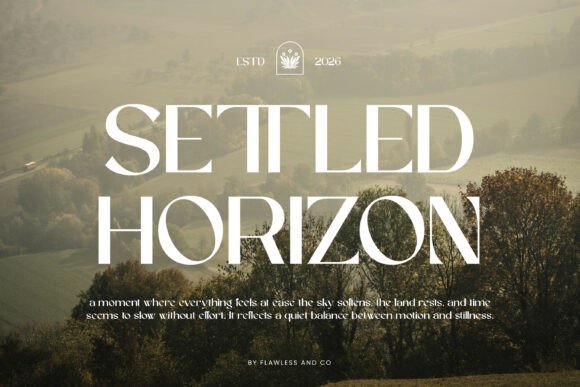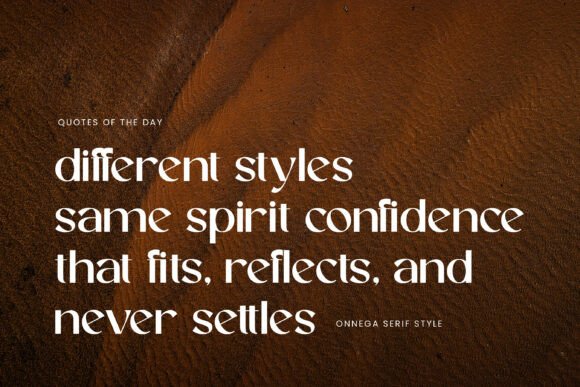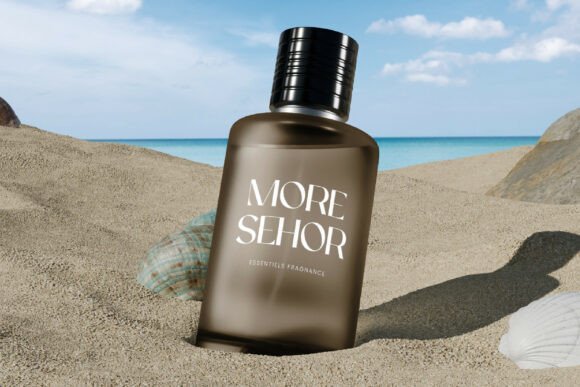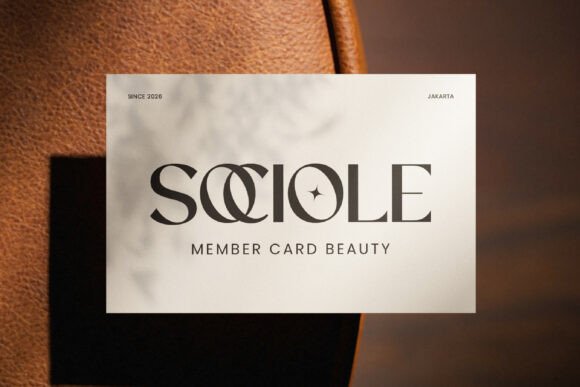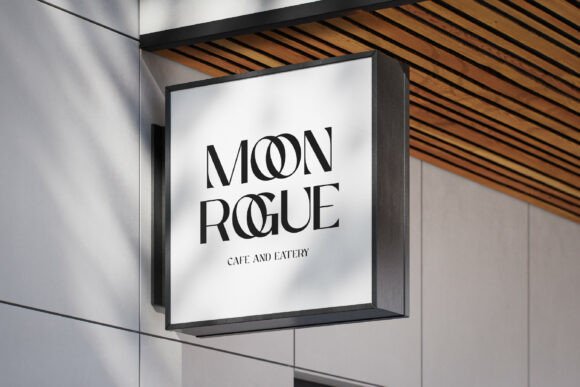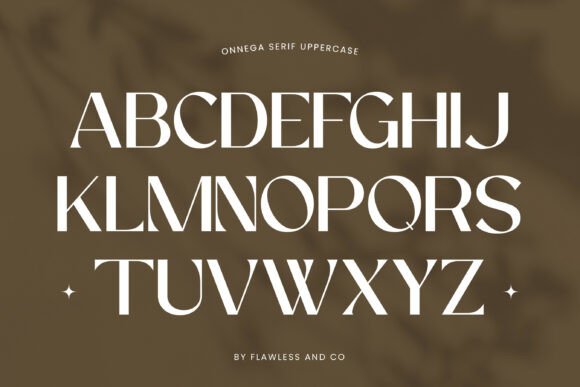
Introduction to Onnega Font
Have you ever been stuck on a creative project, staring at a blank screen, searching for the perfect font to elevate your design to the next level? I’m sure we’ve all been there. That’s exactly what happened to me when I stumbled upon the Onnega Font – a game-changing, premium luxury serif typeface that has revolutionized the way I approach typography.
With its exquisite letterforms, high-contrast strokes, and elegant proportions, Onnega Font creates a striking visual presence that’s both timeless and modern. As a designer, I can attest to the value of having a high-quality design resource like this at your disposal. Whether you’re working on a branding project, creating editorial layouts, or designing premium packaging, Onnega Font delivers a truly upscale typographic experience that’s sure to impress.
Key Features of Onnega Font
- Font size: 256 glyphs, providing a comprehensive set of characters for various languages.
- Unique, handcrafted design aesthetic, setting it apart from more generic fonts.
Honest Review: Onnega Font
- Unique and creative design: The Onnega Font has a distinct style that sets it apart from other fonts.
- High-quality typography: The font is crisp and clear, making it perfect for any design project.
- Not suitable for all designs: The Onnega Font has a bold and playful style, which might not be suitable for all design projects.
Overall, I’m impressed with the Onnega Font. Its unique design and high-quality typography make it an excellent addition to any design resource library. While it may have some limitations, it’s definitely worth downloading and experimenting with in your next creative project.
The Onnega Font is perfect for a variety of design projects, including logos, business cards, and social media graphics. It’s also great for creating presentations and documents that require a professional and high-quality look.